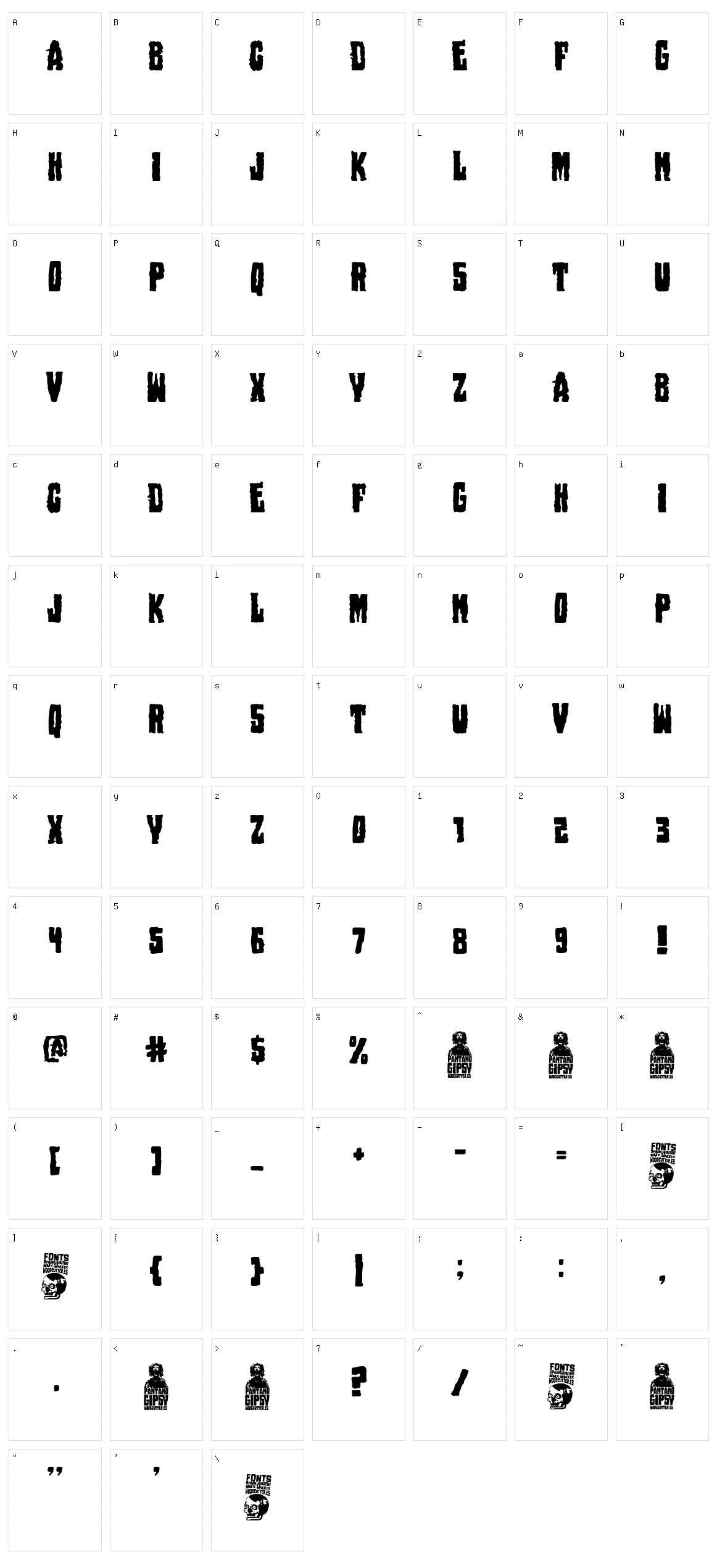
The free font Pantano Gipsy is carefully designed by Woodcutter, showcasing a thoughtful balance of creativity and usability and falls under the Horror font style. When you download the ZIP file, it contains only 147.4 KB of font files, making it lightweight and quick to download. Please review the license details below to understand permitted usage and distribution rights. If license information is not available, we recommend using this font for personal projects only or contacting the author directly for commercial usage permissions.